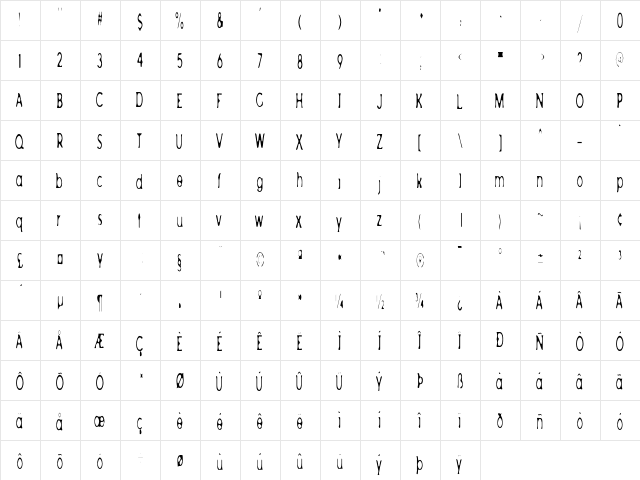
AchillesBlurLight Tall
Design Context for AchillesBlurLight Typeface
AchillesBlurLight offers clean, dependable letterforms without strong stylistic allegiance, making it a practical choice for designers who need flexibility. Its slender proportions lend an understated elegance to any composition.